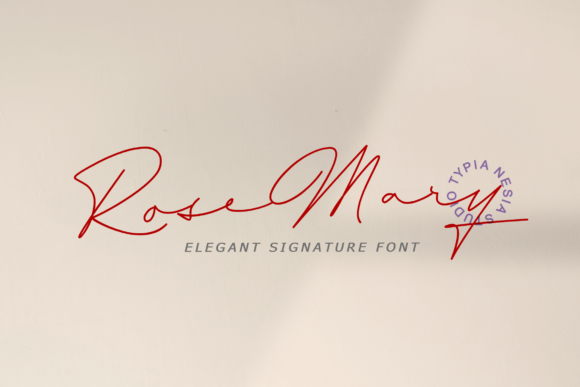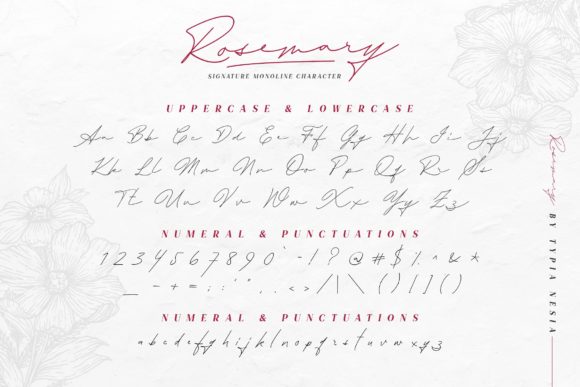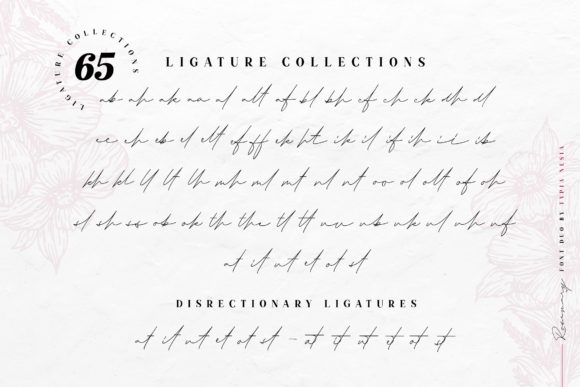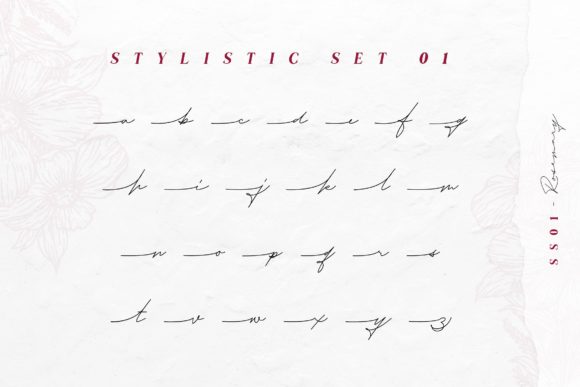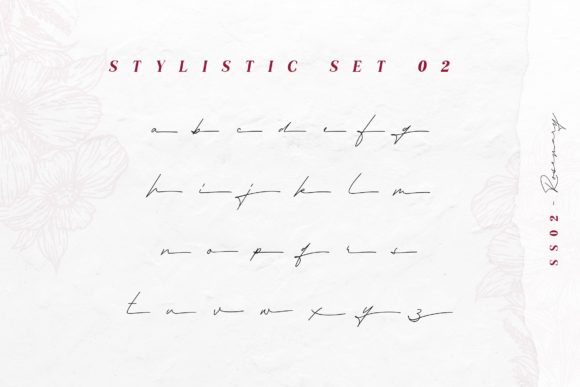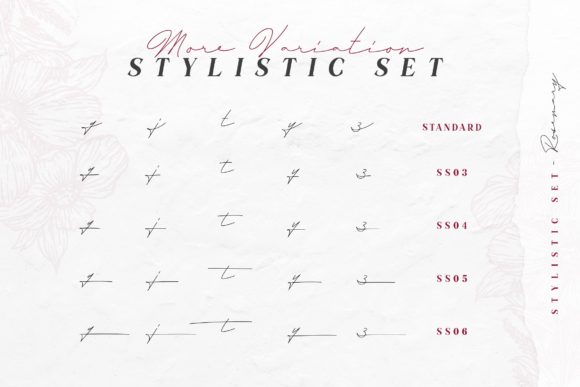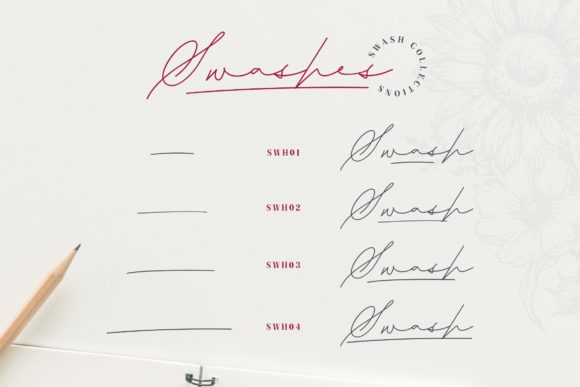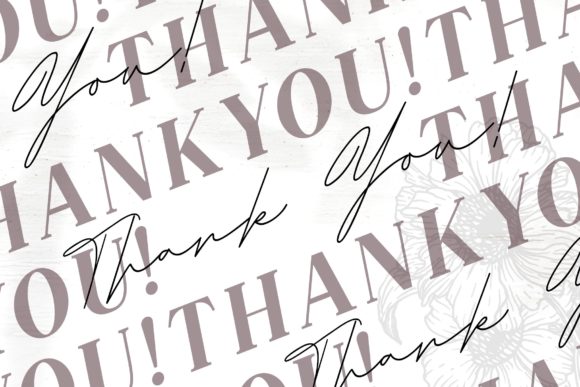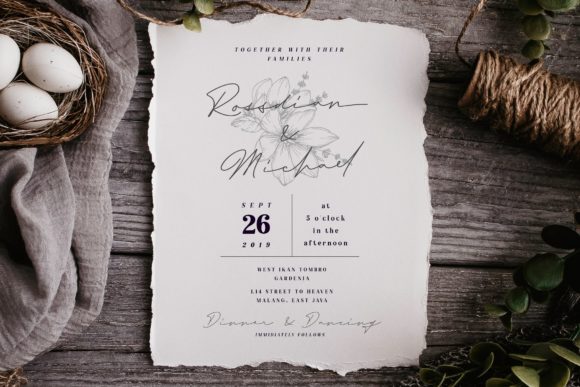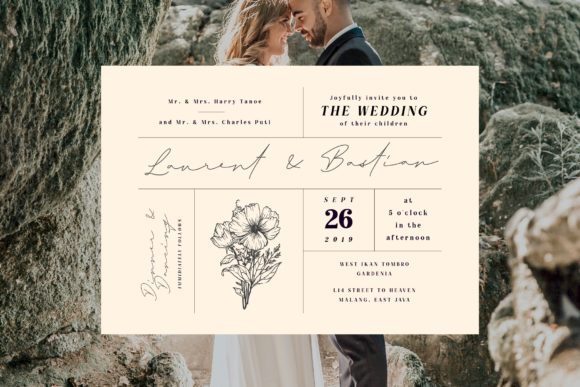
HomeScript FontsRosemary Font Script Fonts Rosemary Font FacebookXPinterestWhatsApp Rosemary Font Poster 2 Rosemary Font Poster 3 Rosemary Font Poster 4 Rosemary Font Poster 5 Rosemary Font Poster 6 Rosemary Font Poster 7 Rosemary Font Poster 8 Rosemary Font Poster 9 Rosemary Font Poster 10 Rosemary Font Poster 11 Rosemary Font Poster 12 Rosemary Font Poster 13 Rosemary Font Poster 14 Rosemary Font Poster 15 Rosemary Font Poster 16 About Rosemary Font Rosemary is a sweet and simple handwritten font with a unique feel. Get inspired by its romantic charm! DOWNLOAD ON CREATIVE FABRICAThis font is sold and delivered by Creative Fabrica. Font Canyon may earn a commission if you buy through this link. People also explored Hundred Eighty-three Font Abruptly Font Krague Font Angel Signature Font Autumn Font Joanie Font Hello Shieza Font Mutilation Font Calhambeque Font 302 0 TagsRosemary Font Previous articleBiyanka Robert FontNext articleSwally Font LEAVE A REPLY Cancel reply Comment: Please enter your comment! Name:* Please enter your name here Email:* You have entered an incorrect email address! Please enter your email address here Website: Save my name, email, and website in this browser for the next time I comment. Personal Use Free Loving You Personal Use Free Read more about this font Carnivals Personal Use Free Read more about this font Susanna Personal Use Free Read more about this font Fillguy Font Personal Use Free Read more about this font BLOG Exploring Font Trends Shaping Communication in the Digital Era Fonts, like all design elements, are subject to trends. They play a crucial role in communicating a brand's personality,... Best Fonts for YouTube Videos: Make Your Thumbnails Stand Out Free Fonts Risk: Why Free Fonts Can Be Dangerous for Designers Modern Sans-Serif Fonts That Brands Love in 2025